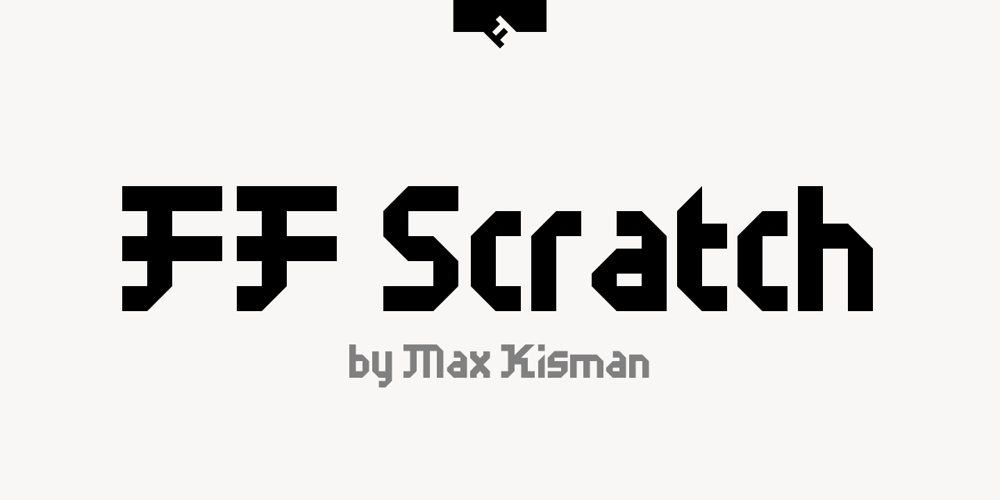
FF Scratch Font Family was designed by Max Kisman and published by FontFont. FF Scratch contains 2 styles and family package options. Dutch type designer Max Kisman created this display FontFont in 1990. The family contains 2 weights and is ideally suited for poster and billboards and sports. FF Scratch provides advanced typographical support with features such as ligatures and case-sensitive forms. It comes with proportional lining figures.